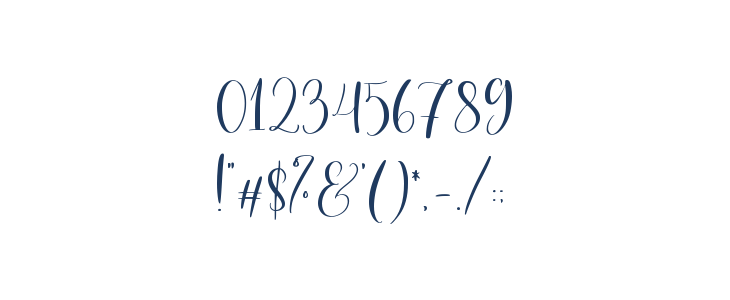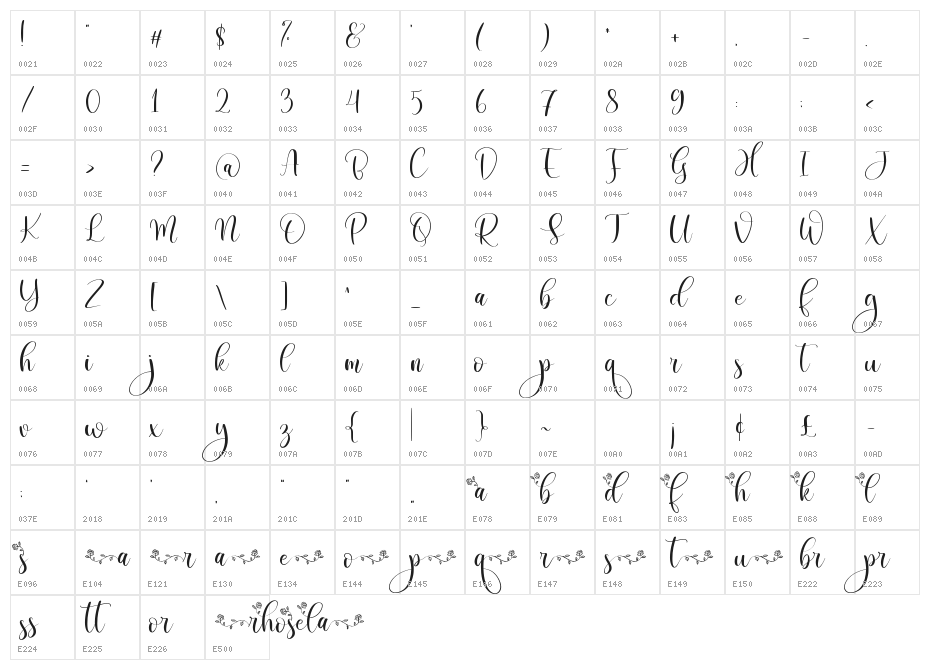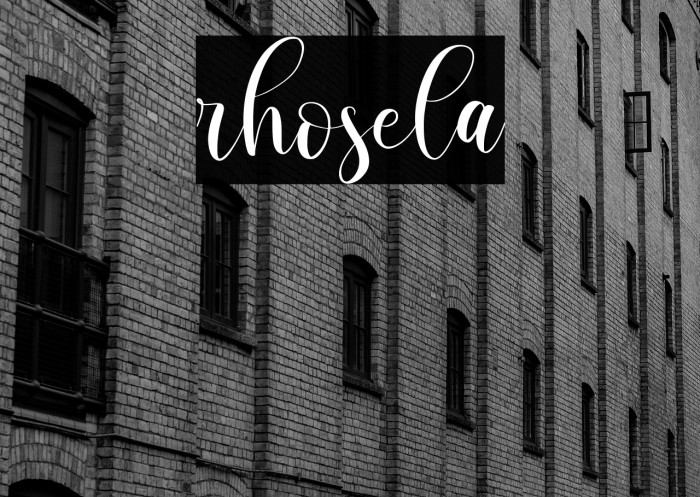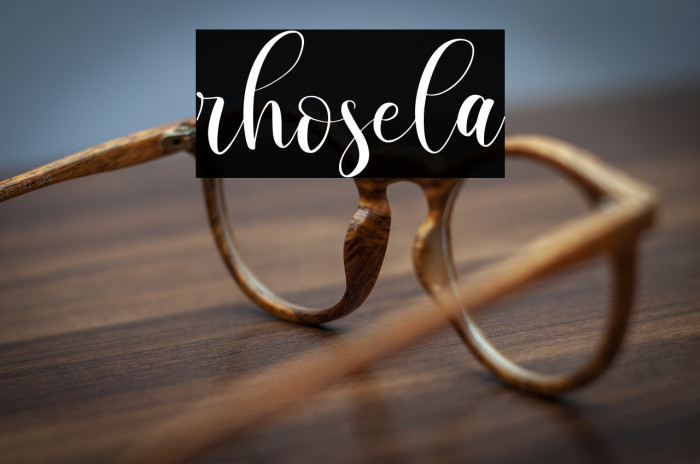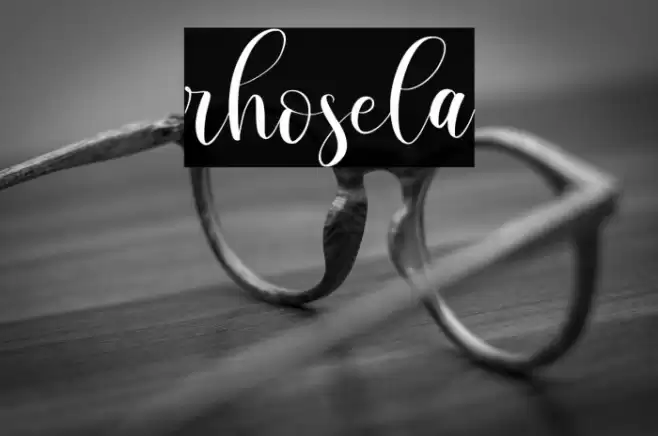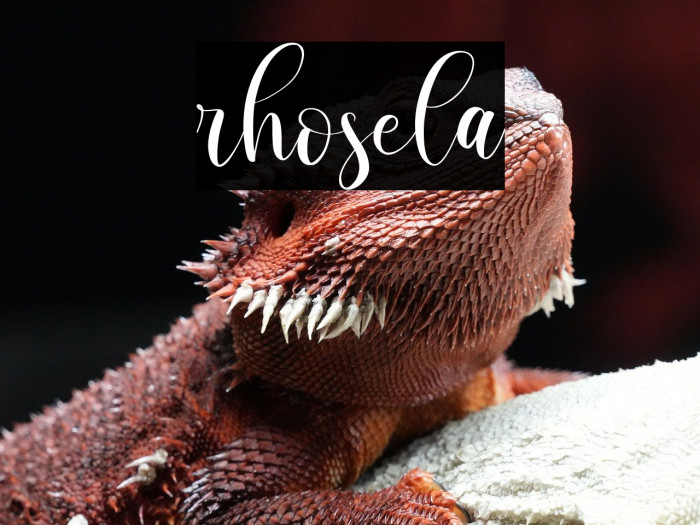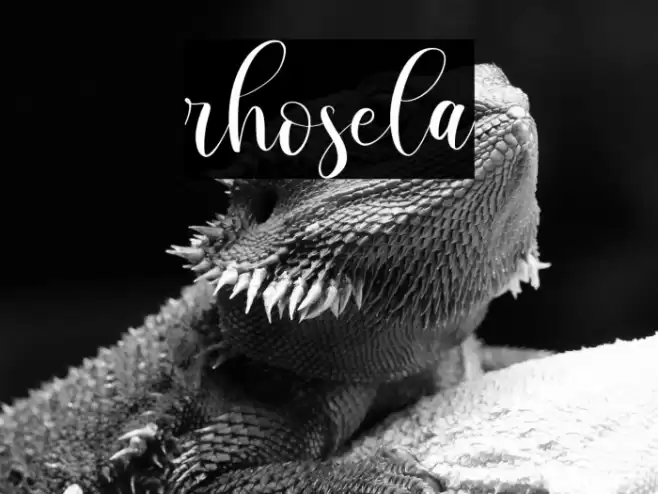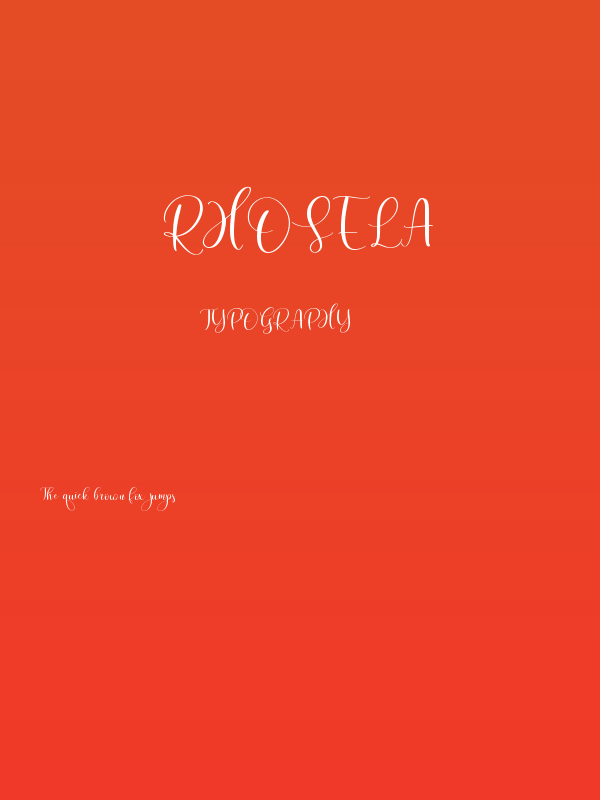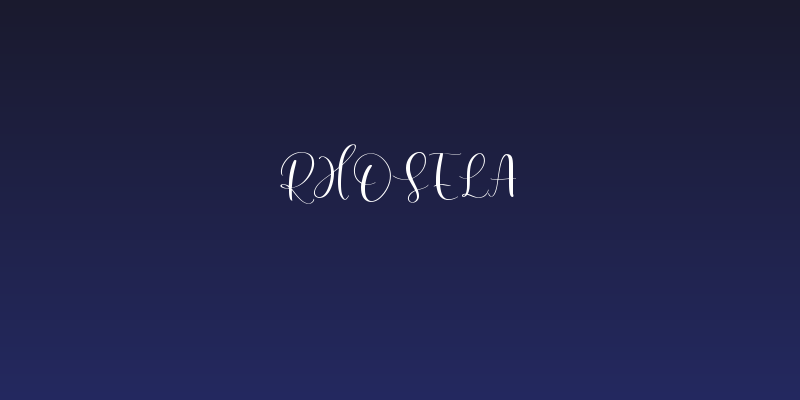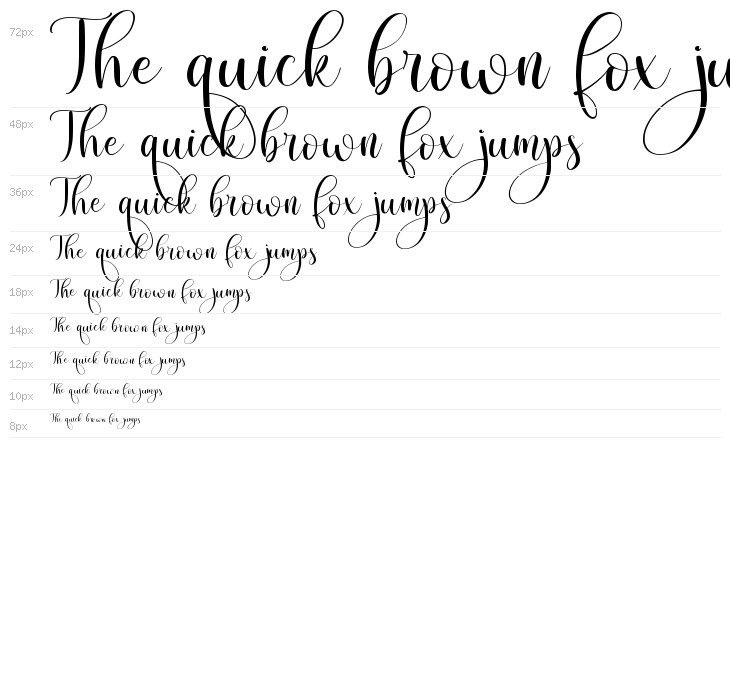
rhosela Font
rhosela Description
This elegant script font features a flowing, cursive style with a modern twist. The uppercase letters are characterized by their tall, sweeping ascenders and descenders, giving them a graceful and sophisticated appearance. The lowercase letters maintain a consistent flow, with some characters featuring unique loops and swirls that add to the font's charm. The numerals are designed to complement the letters, maintaining the same fluidity and elegance. Special characters are thoughtfully crafted, ensuring they blend seamlessly with the overall style. This font is perfect for projects that require a touch of elegance and sophistication, such as wedding invitations, branding, and high-end product packaging.
| Overall Style | Modern, Elegant |
| Proposed Projects | Ideal for wedding invitations, luxury branding, and elegant product packaging. |